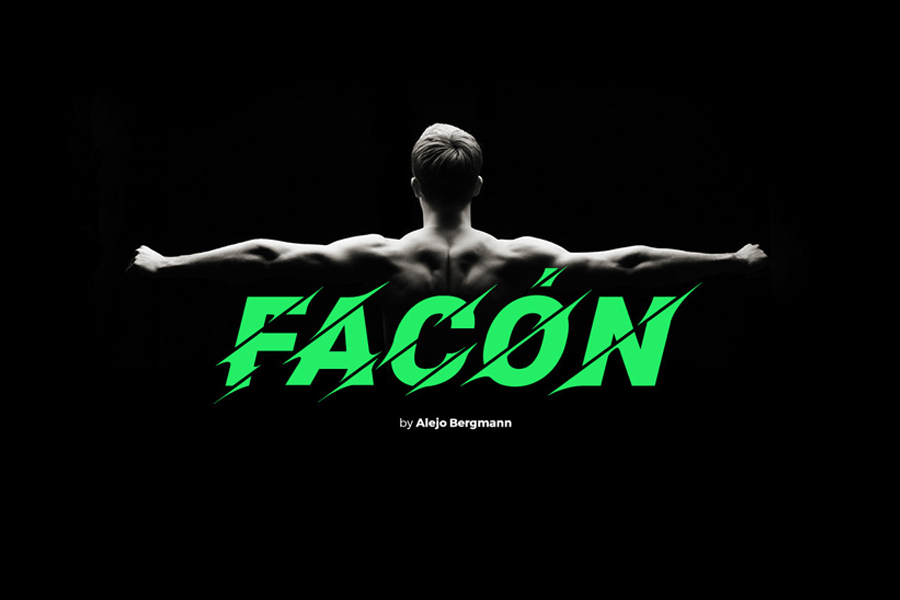
Facón – Free Sliced Font Typeface
Facón – Free Sliced Font Typeface is a sporty looking typeface designed by Alejo Bergmann. It’s powerful, vibrant and is totally unique. It kind of looks like a ninja sliced all the letters which gave the font a bold effect. Facón is a creative typeface that adds a “sportive” touch to any design. It evokes an aggressive aesthetic and is in constant movement, as if the typography could not stand still in one place. The free font files are free for personal and commercial use and are provided for free by Rostype.